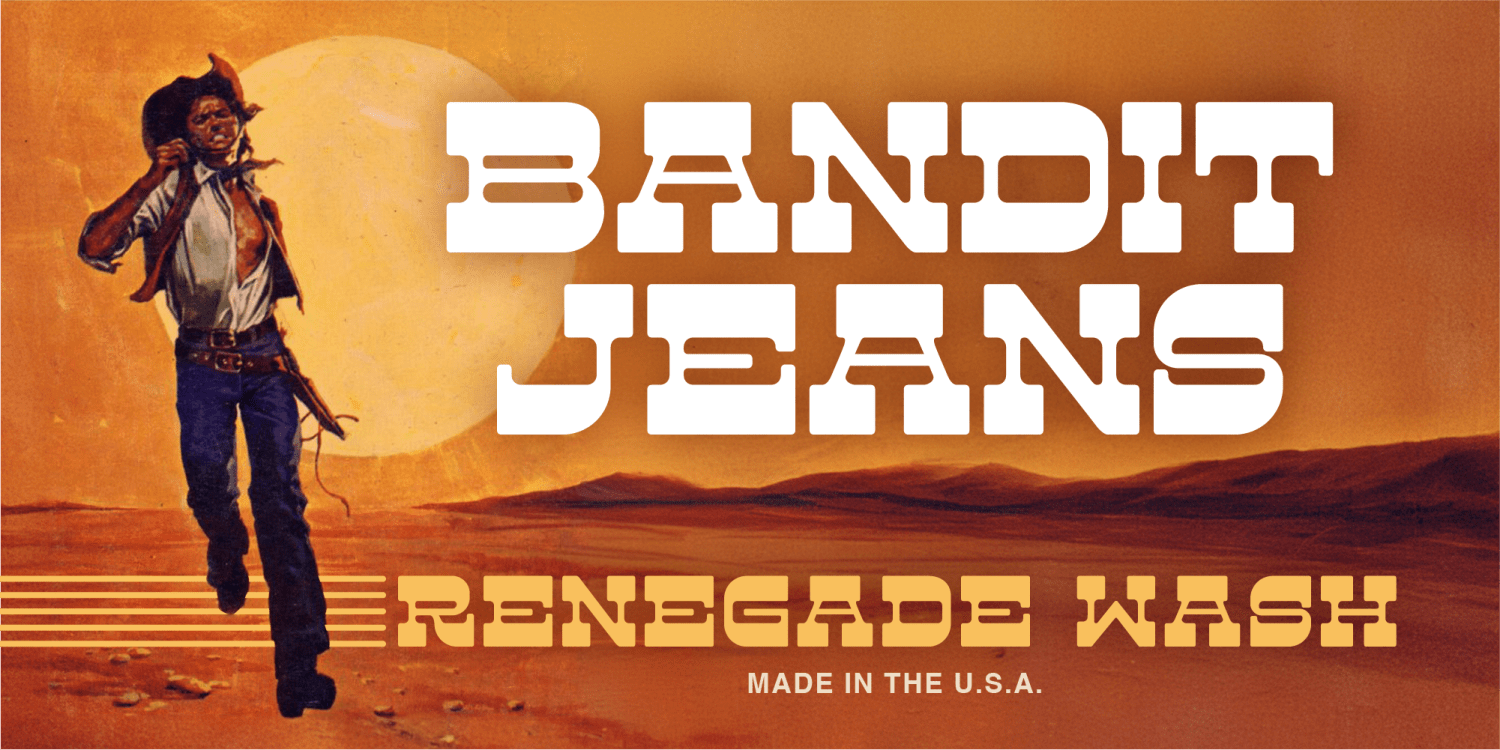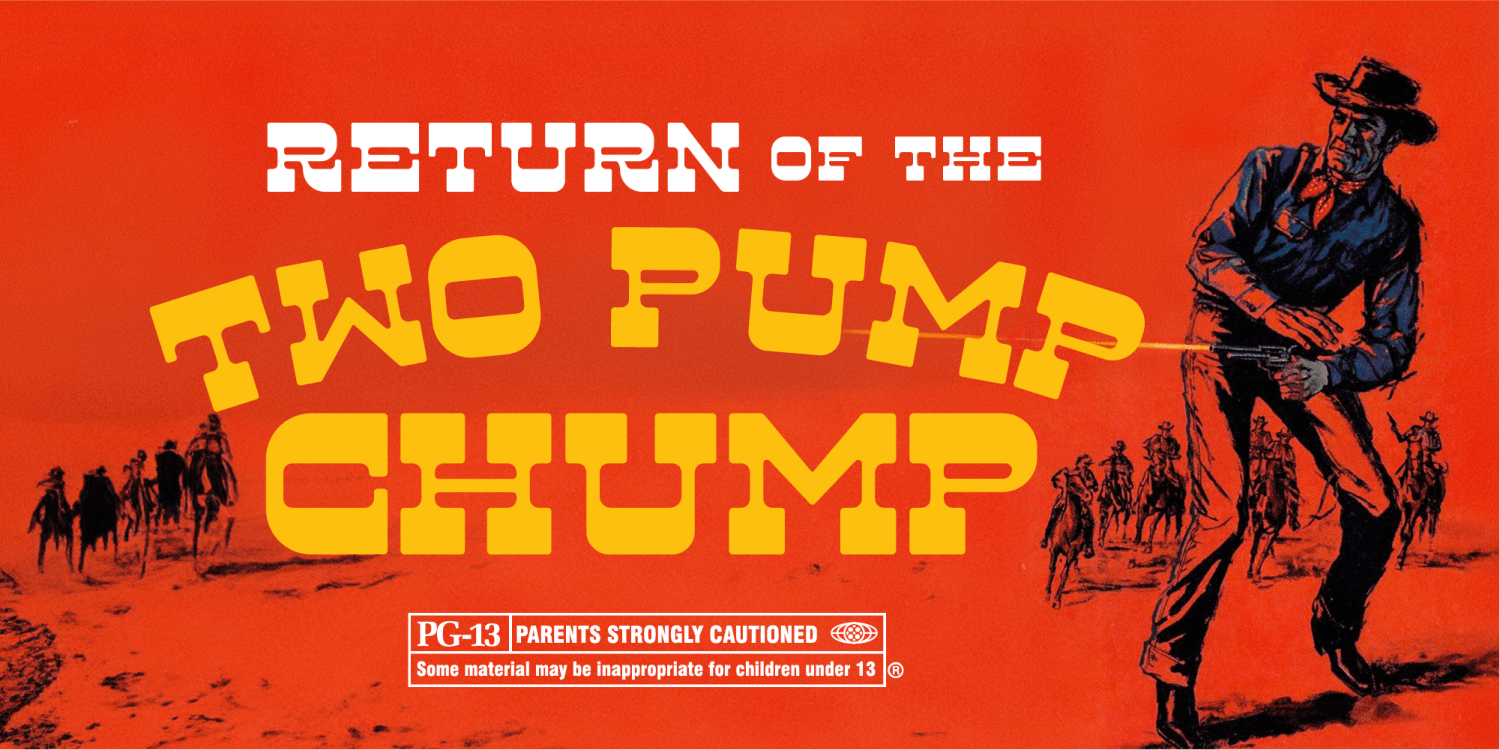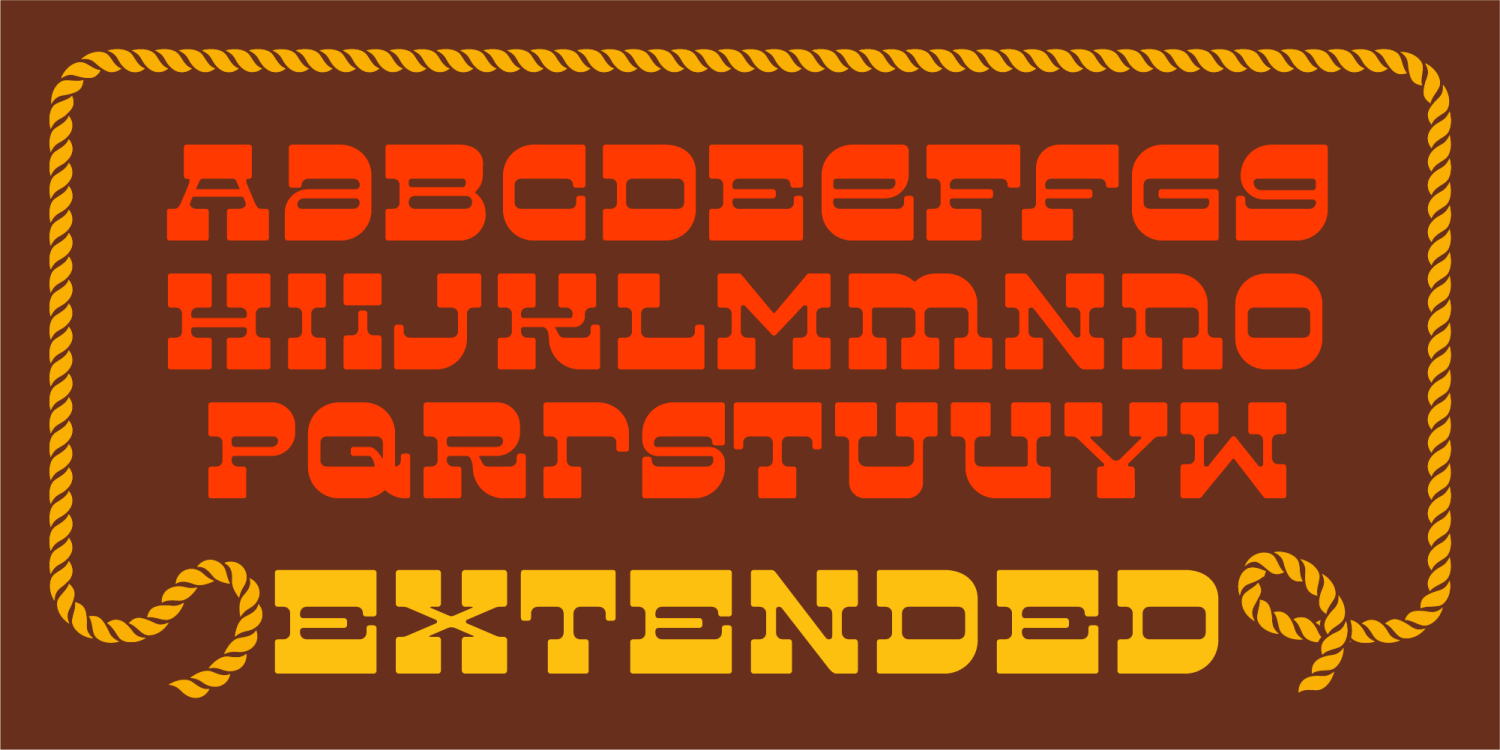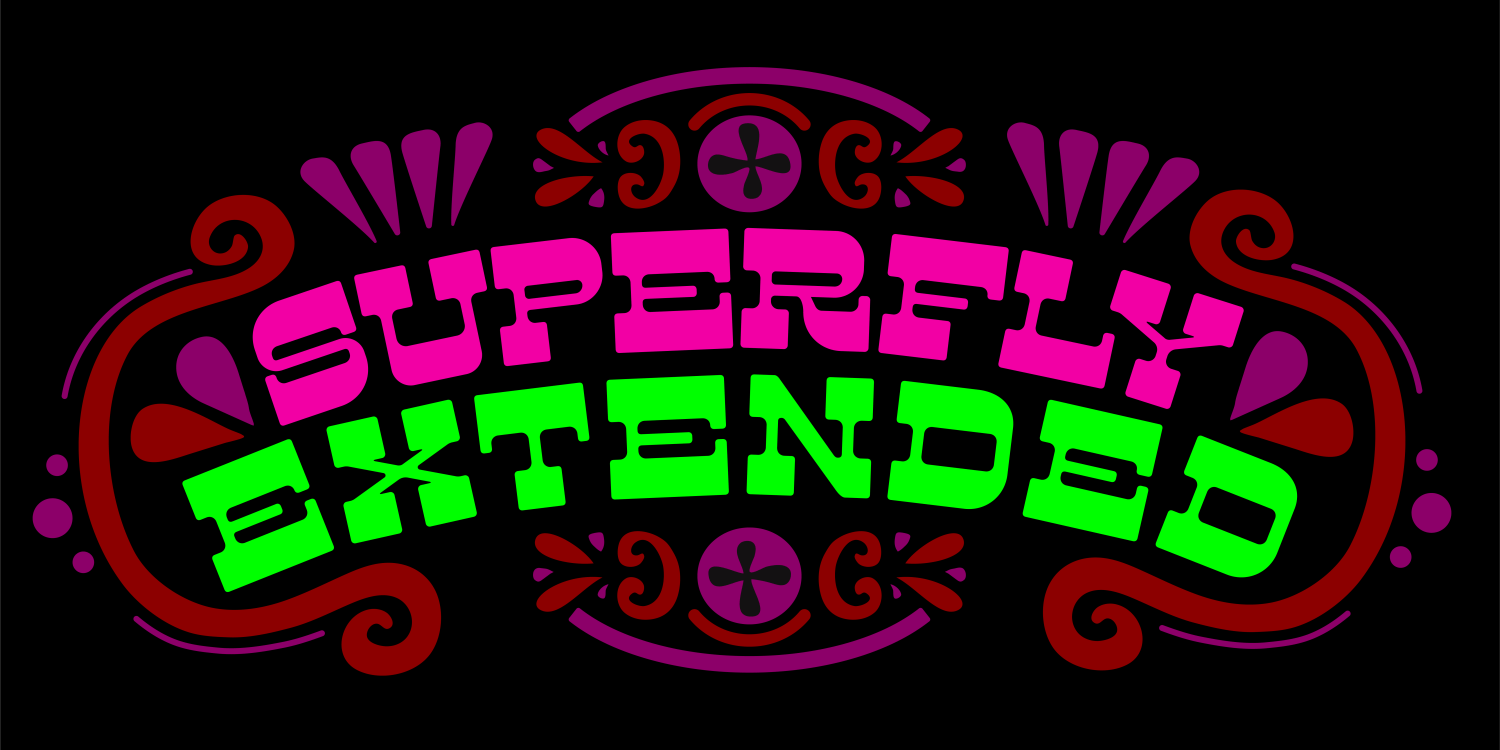
New twist on an old original. People love a remake because something familiar is comfortable, and designers love a remake because it's easy, EVERYONE WINS